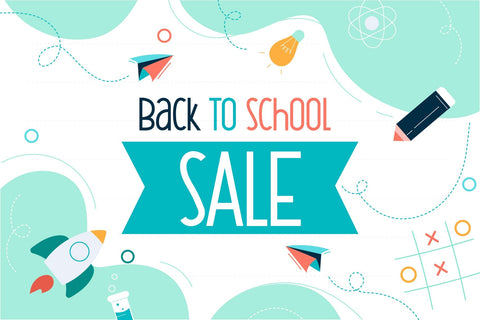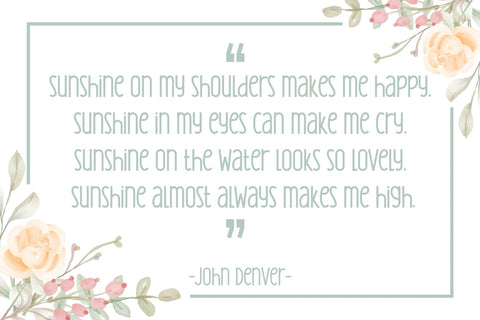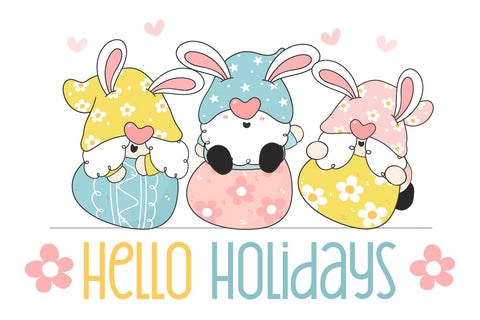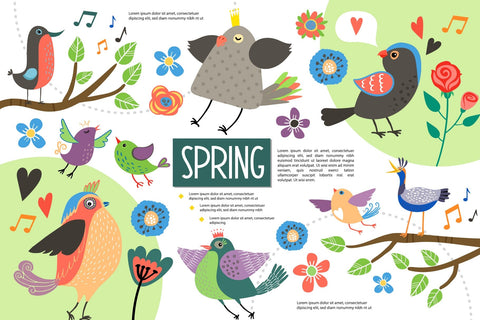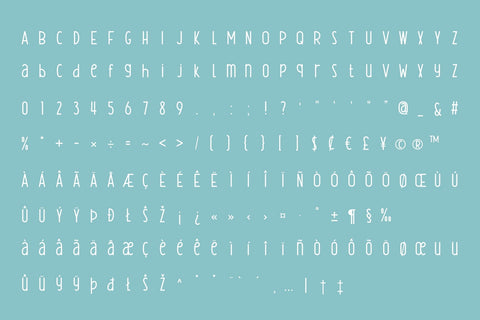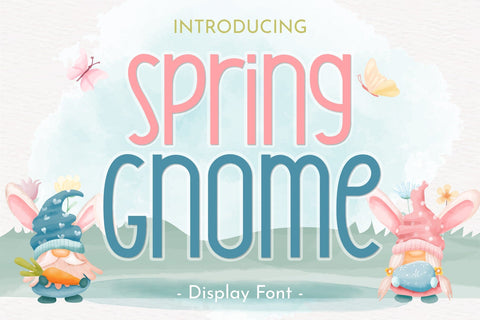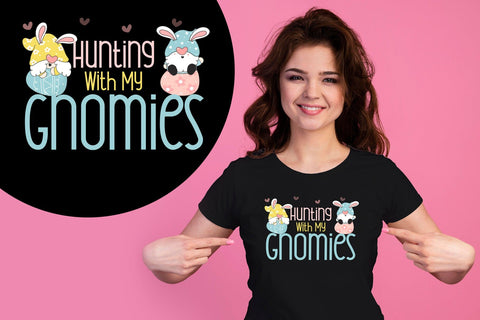
Spring Gnome Font
Spring Gnome is a fun and cute display font. Due to its versatile vibe, it fits perfectly into any design idea, such as children projects, blog posts, logos, branding, ads, invitations, greeting cards, planners, photo albums, decorations, and much more.